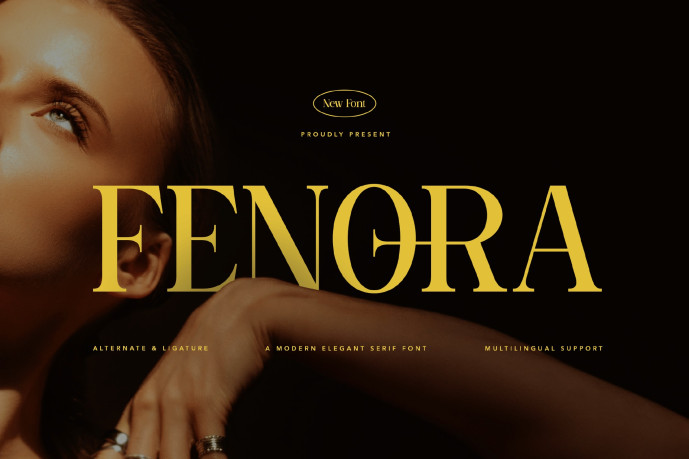
Elegant Serif Fenora Font
Elegant Serif Fenora Font is a refined and timeless typeface designed to bring sophistication and versatility to your creative projects. With its elegant serif details, balanced letterforms, and modern aesthetics, this font is perfect for designers who want to achieve a professional yet stylish look.
Crafted with precision, Fenora strikes the perfect harmony between classic serif elegance and contemporary design trends. Whether you’re working on branding, editorial layouts, packaging, presentations, invitations, or social media graphics, Fenora ensures your typography stands out with class and confidence.
This font is highly versatile and can be paired beautifully with both sans serif and script fonts, making it an essential addition to your type collection. It comes with uppercase, lowercase, numbers, punctuation, and multilingual support, ensuring seamless use across a wide range of projects.
Features:
• Multilingual
• Uppercase alphabet A-Z
• Lowercase alphabet a-z
• Numbers 0-9
• Some punctuation
• Some Alternates and Ligatures
*If you’re looking for a font that embodies luxury, minimalism, and modern elegance, Elegant Serif Fenora Font is the ideal choice to elevate your designs and capture attention.